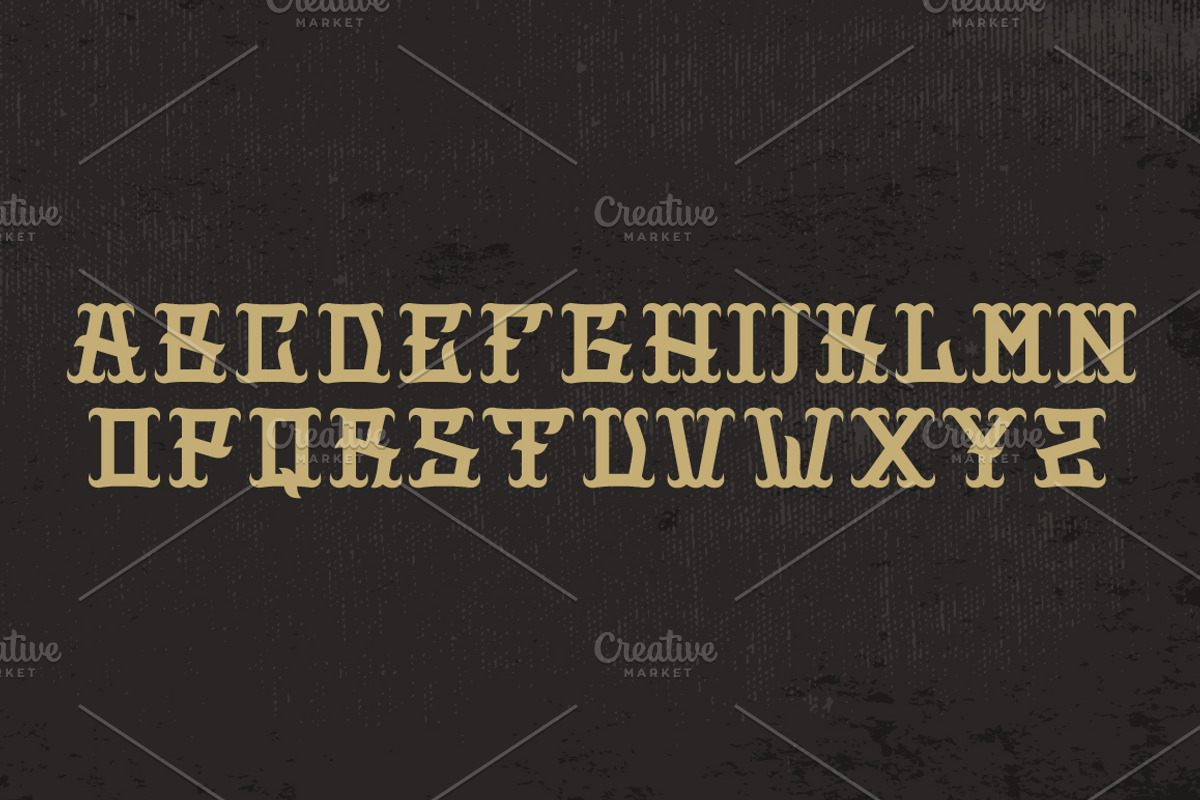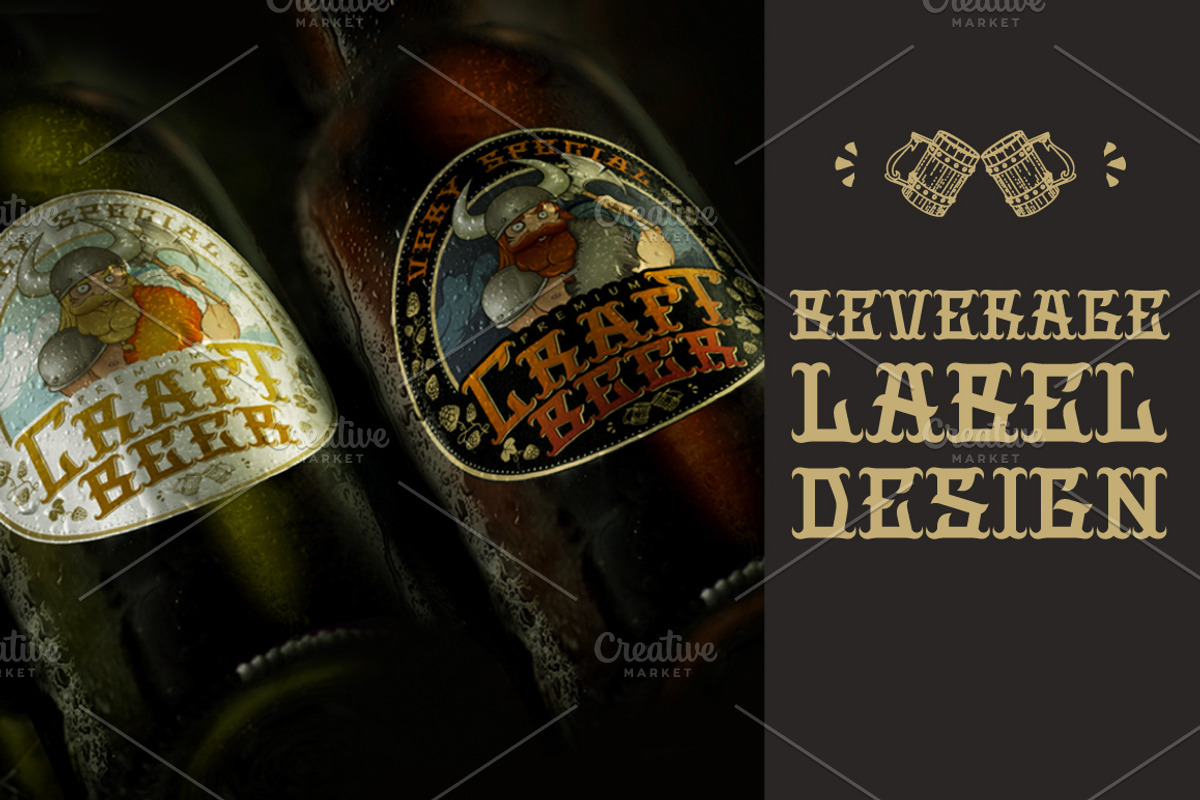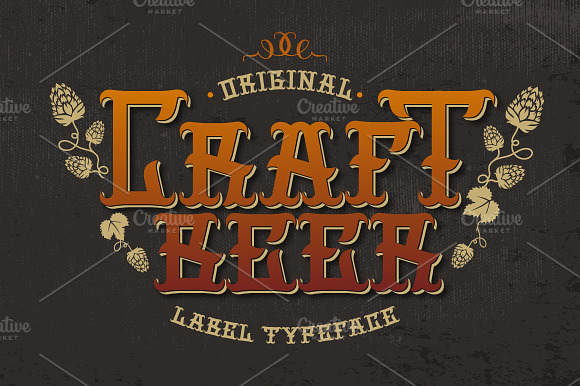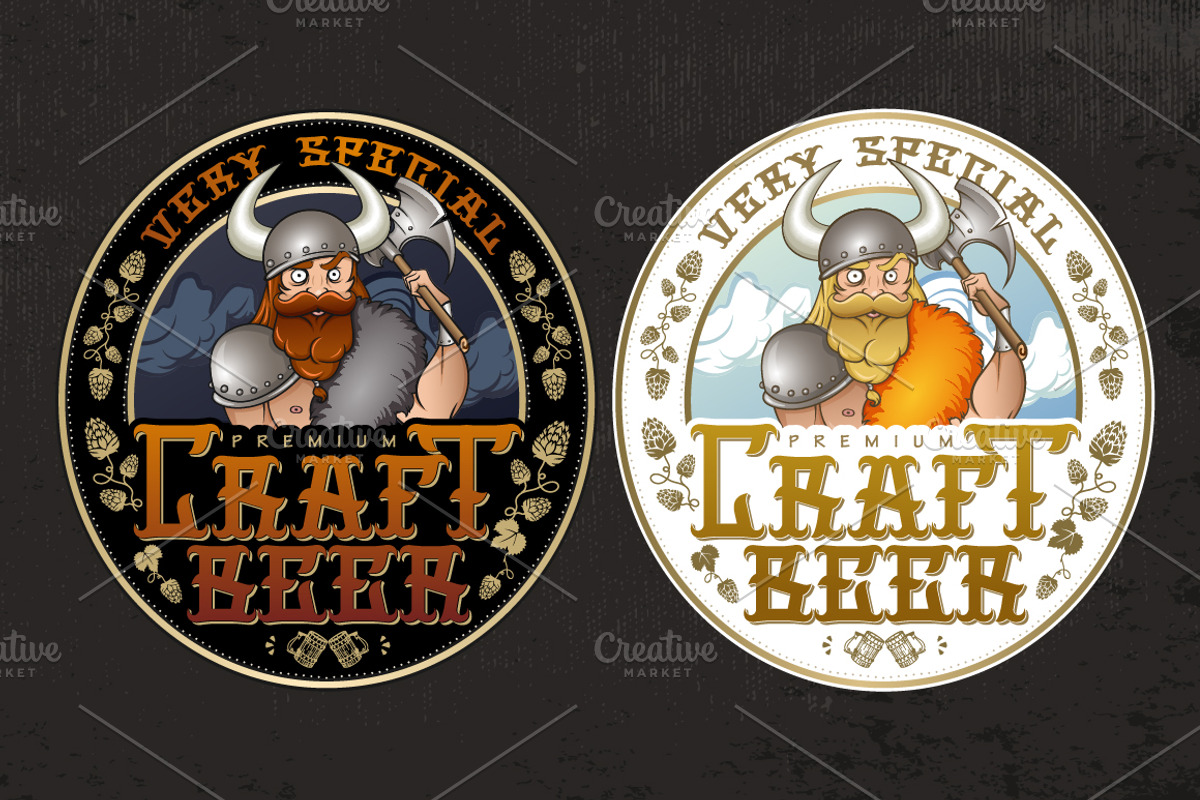
Craft Beer font & more
Stylish typeface for your designs. Good for beverage label design or any purpose. Also you get 2 cool stickers, funny viking mascot and clip art.
Why Craft Beer font & more is worth a look
Craft Beer font & more by VioSilent fits naturally into Branding, posters, packaging, typography.